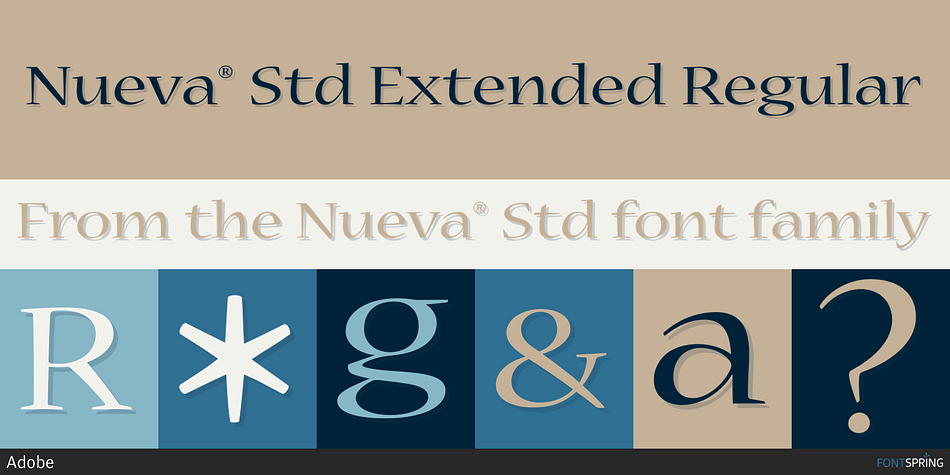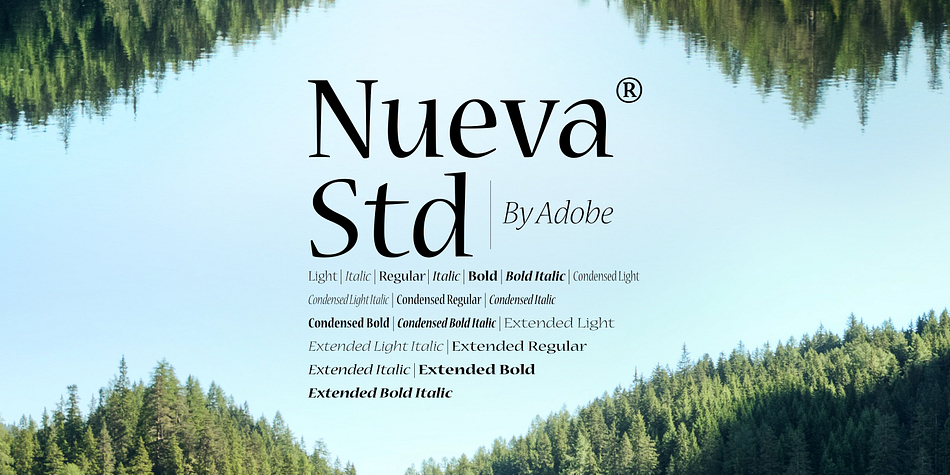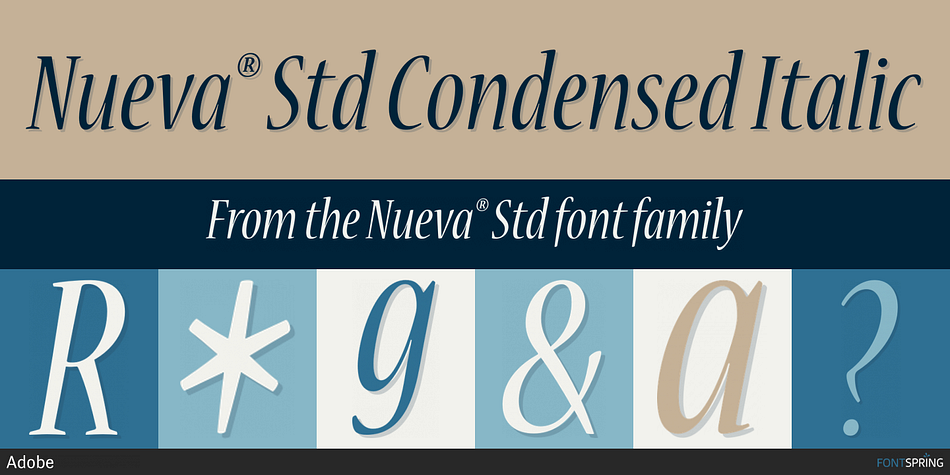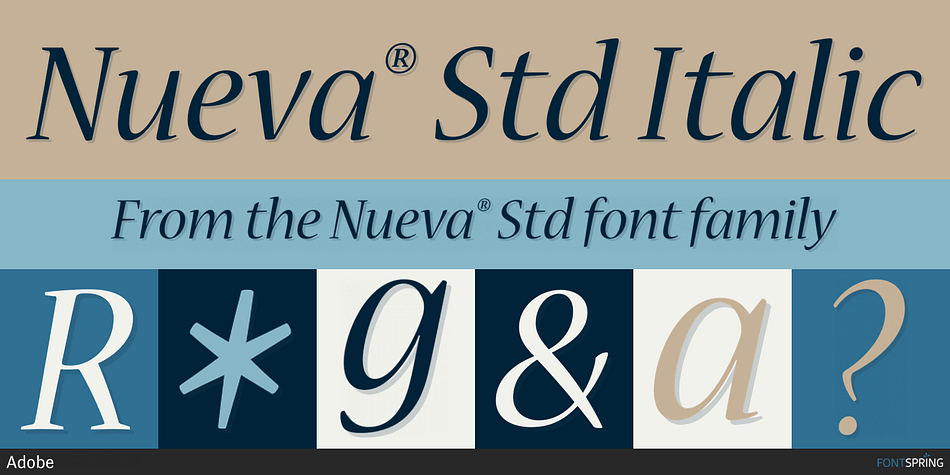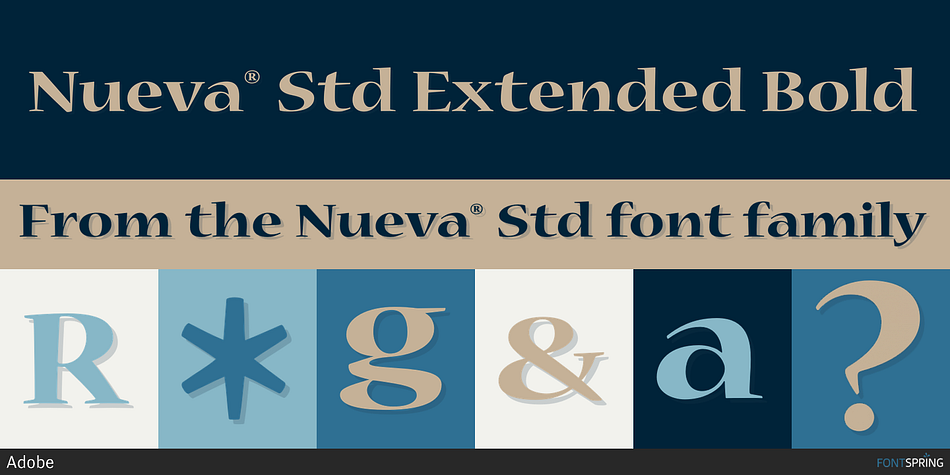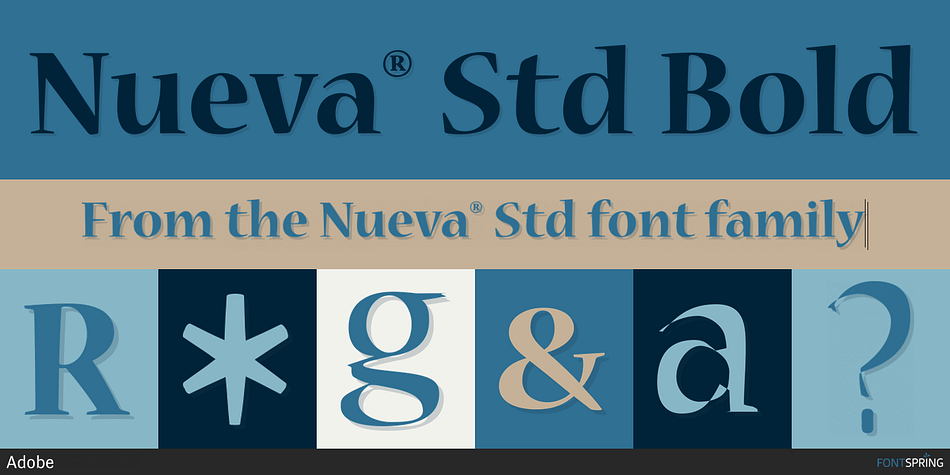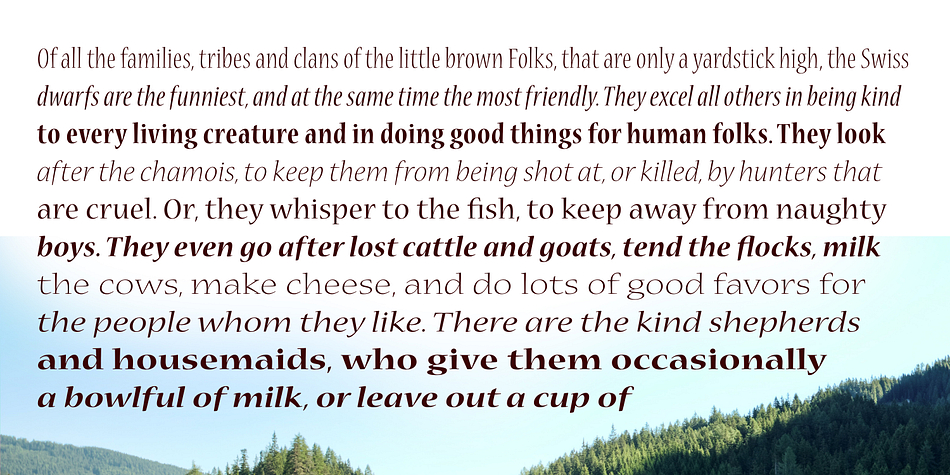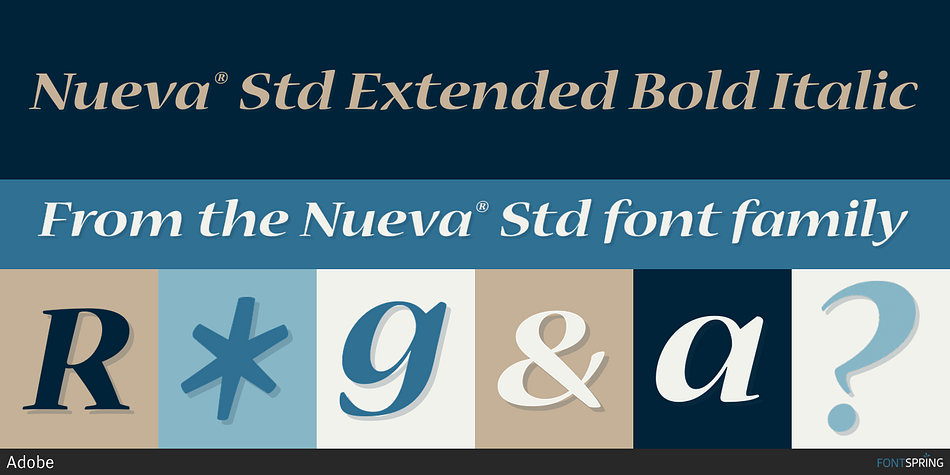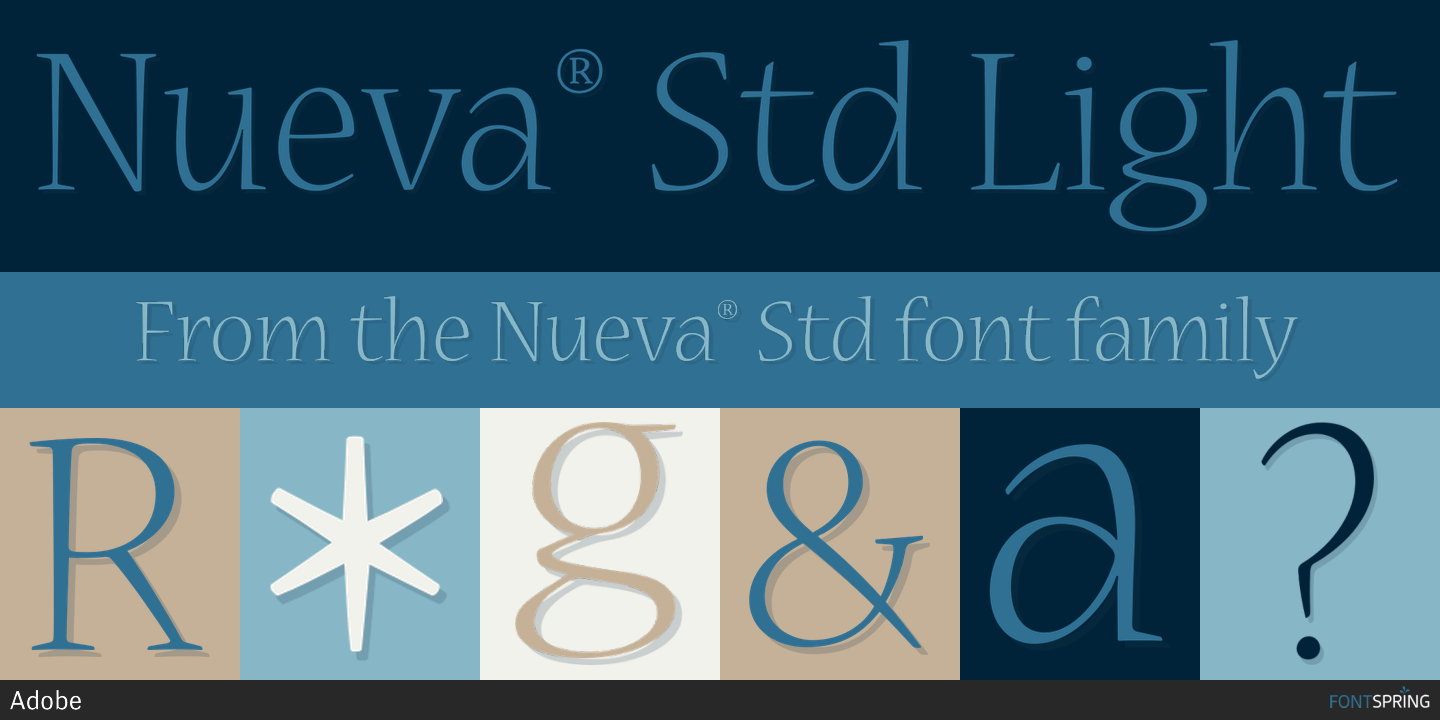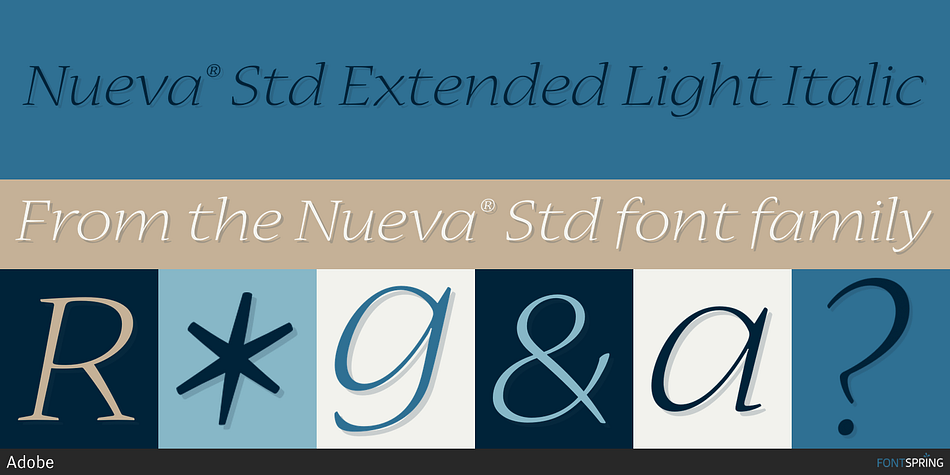
Nueva® Std is a serif font family. This typeface has eighteen styles and was published by Adobe.
Nueva, designed by Carol Twombly in 1994, was originally conceived as a potential lowercase companion to her 1990 titling typeface Charlemagne. Nueva came into its own with a contemporary kinetic lowercase with its own capitals to match. Nueva has very high stroke contrast, with round, bouncy counterforms and stroke shapes, particularly in the wider instances. The low connecting joins of the arches on h, m, n, r, b, d, p and q are characteristic of some calligraphic designs, and this combined with rounded bowls and tapering stems makes Nueva unique among roman typefaces; the accompanying italic is a true italic design. Nueva is extremely versatile and can take on a workload that ranges from fine book titles to billboards.